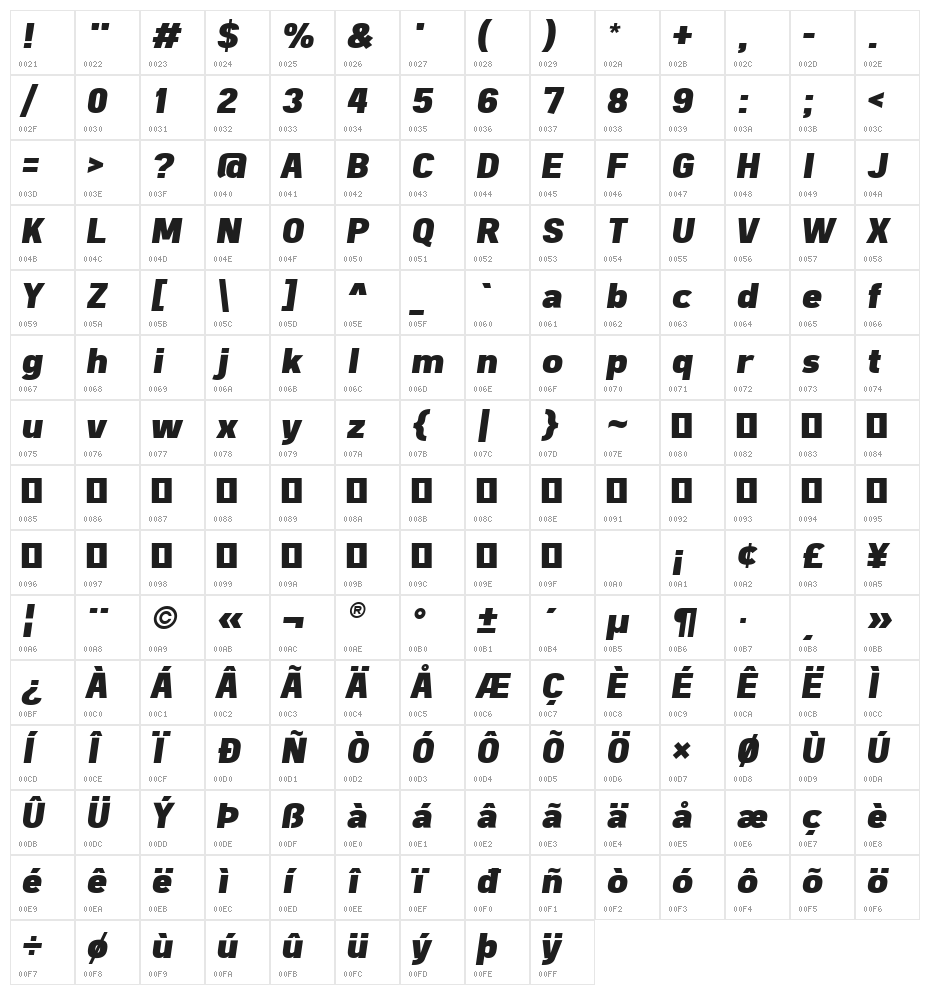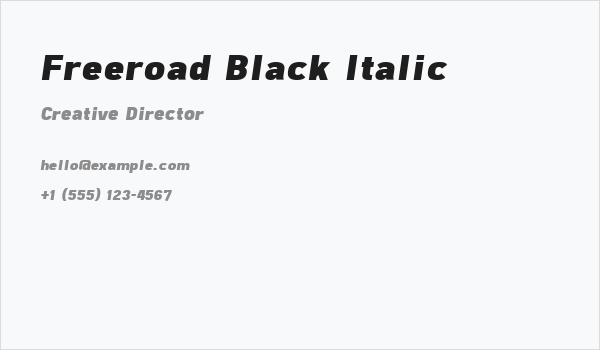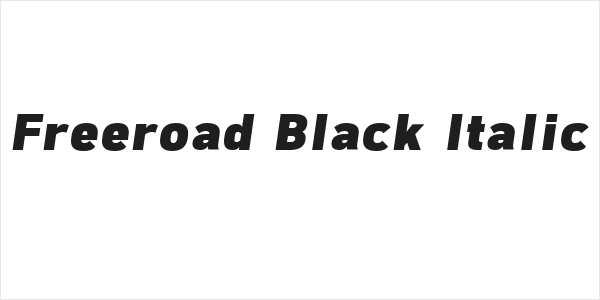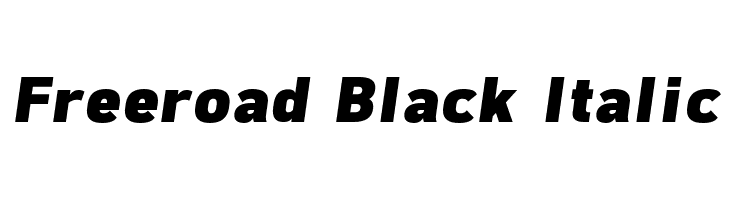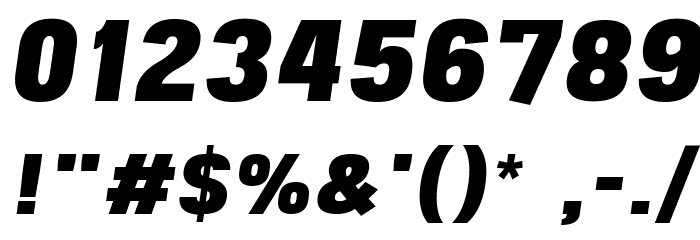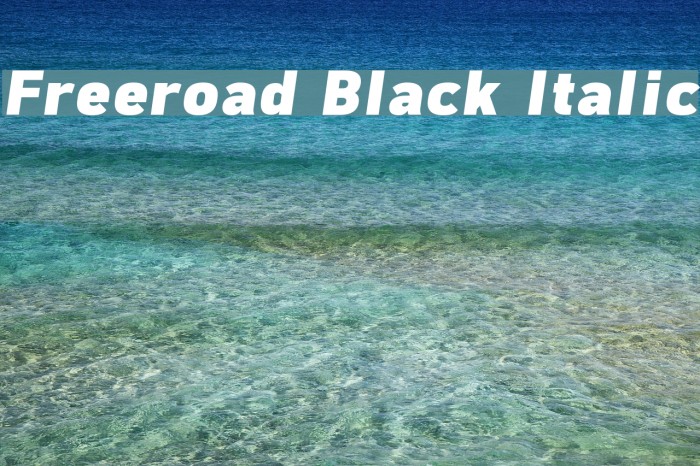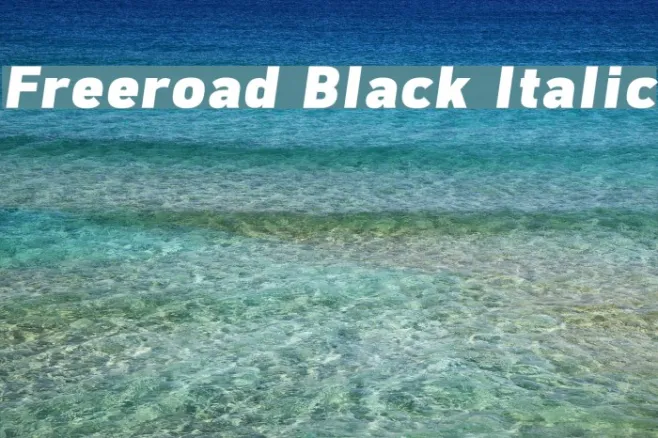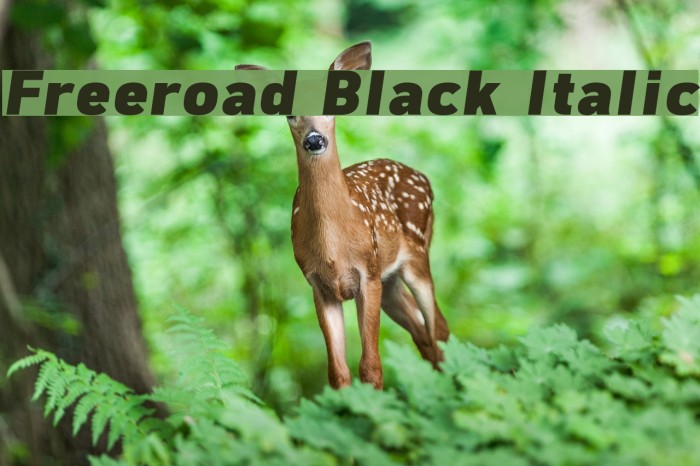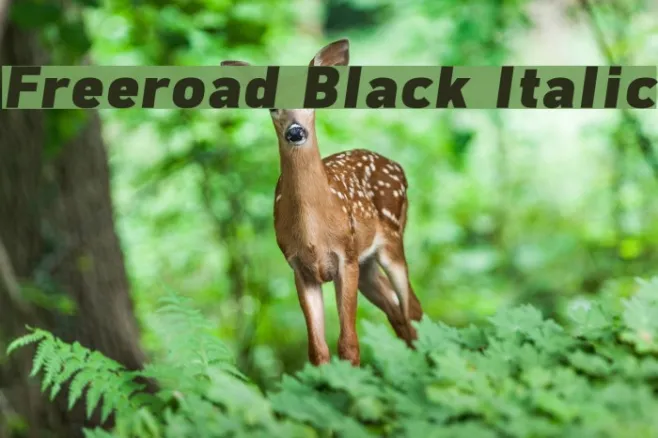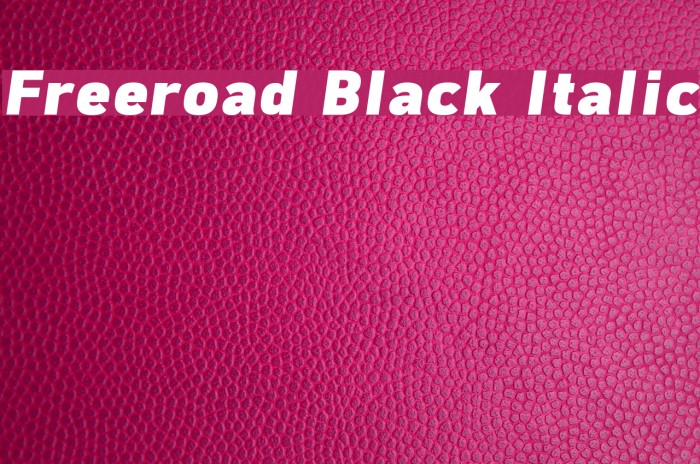
Freeroad Black Italic Font
Freeroad Black Italic Description
This font exhibits a bold and dynamic style, characterized by its strong, thick strokes and italicized slant. The uppercase and lowercase letters maintain a consistent weight, providing a sense of uniformity and strength. The numbers and special characters are equally robust, ensuring readability and impact. The overall design is modern and assertive, making it suitable for projects that require a bold statement. The italic nature adds a sense of motion and emphasis, enhancing its visual appeal.
| Use Case | Headlines, Logos, Branding |
| Proposed Projects | Ideal for headlines, branding, advertising, and any design that requires a strong, impactful presence. |